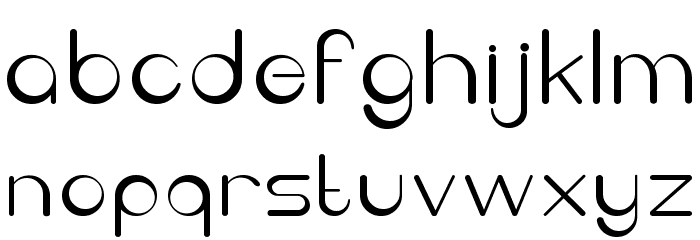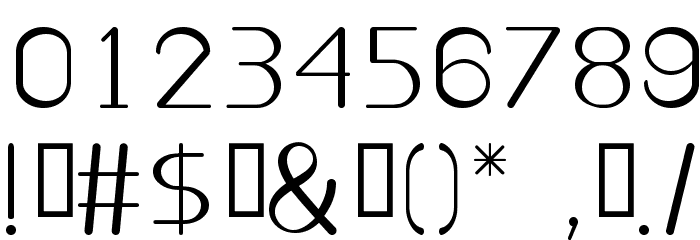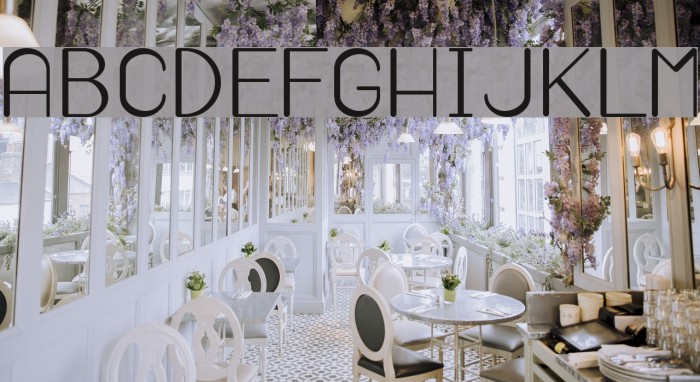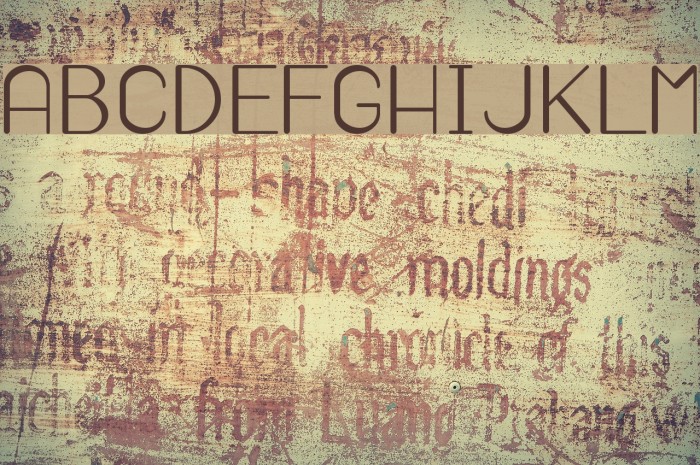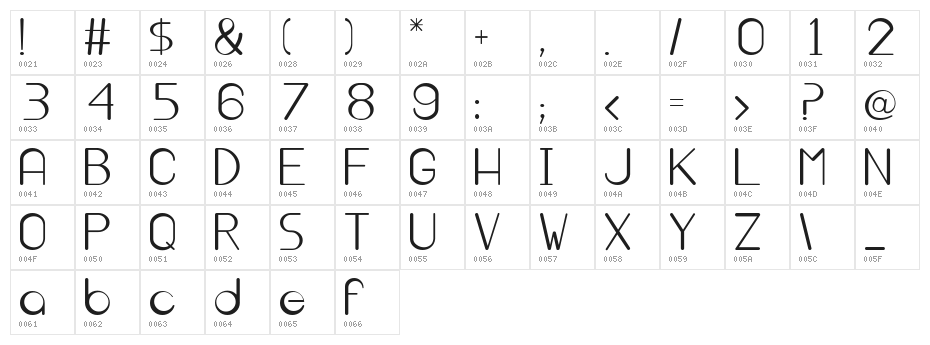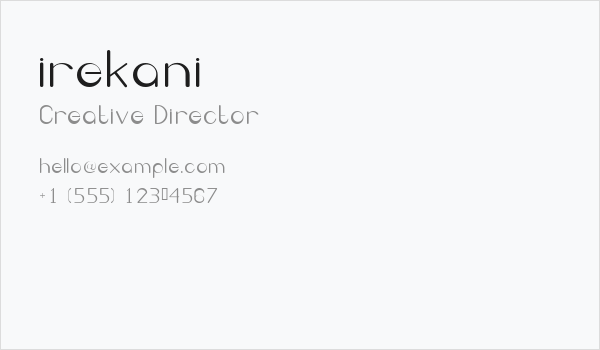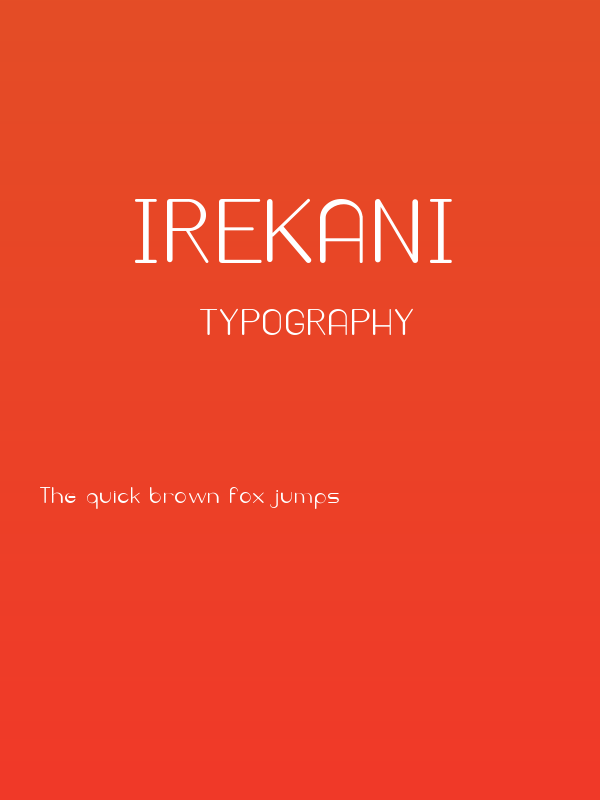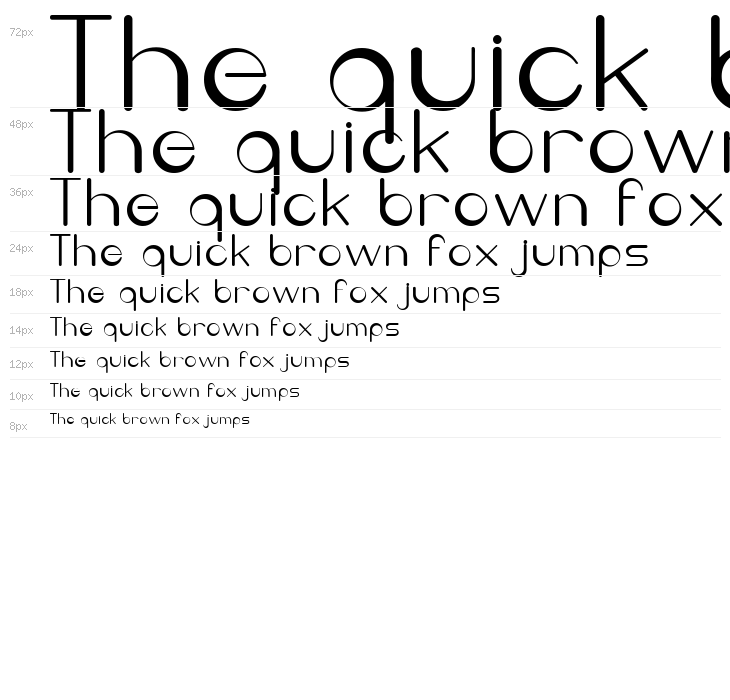
irekani Font
This font features a clean and modern sans-serif design with rounded edges, giving it a friendly and approachable appearance. The uniform stroke width and geometric shapes contribute to its contemporary style. The uppercase letters are bold and well-defined, while the lowercase letters maintain a consistent flow with slight variations in curvature. The numerals are clear and easy to read, making them suitable for various applications. Special characters are distinct and maintain the overall aesthetic of the font. The spacing between characters is balanced, ensuring readability across different sizes.
A modern sans-serif font with rounded edges and geometric shapes.
- Proposed Projects: Ideal for branding, digital interfaces, signage, and advertising materials.